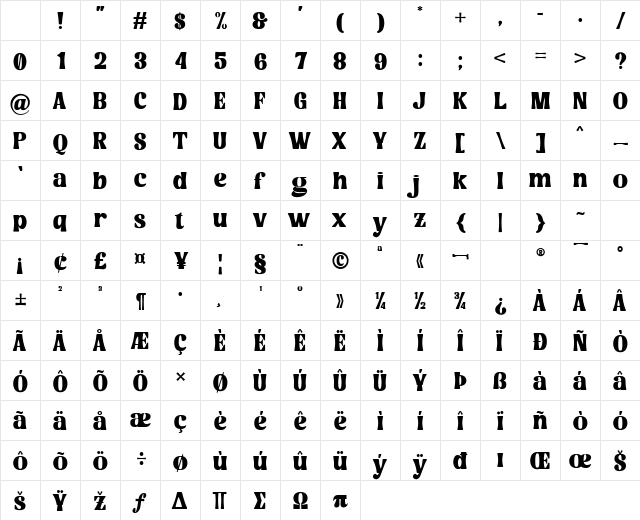
Bogista is a composed and adaptable typeface that performs quietly and consistently across a wide range of design contexts.
Pro Tip: Use Bogista in both headline and body roles to test its range before committing to a single application.